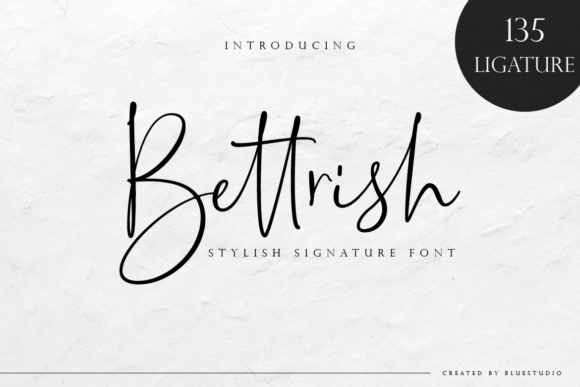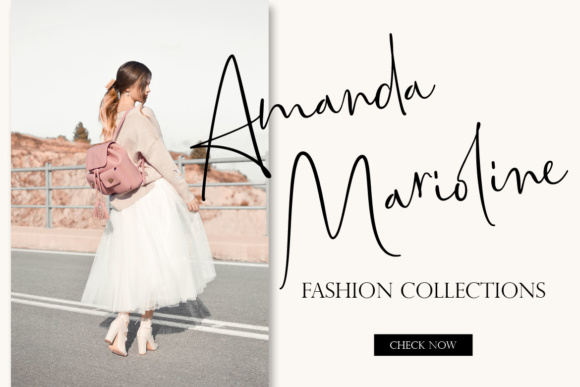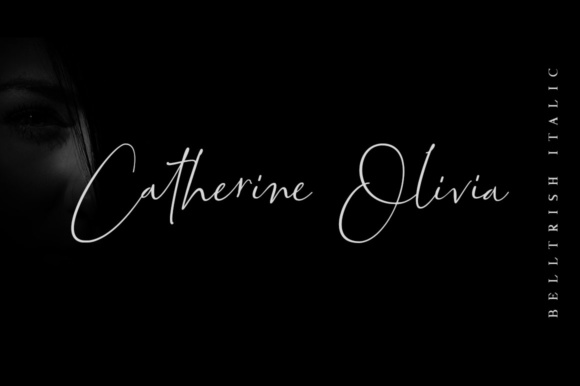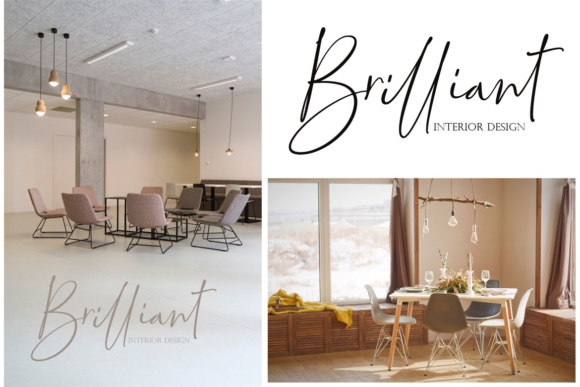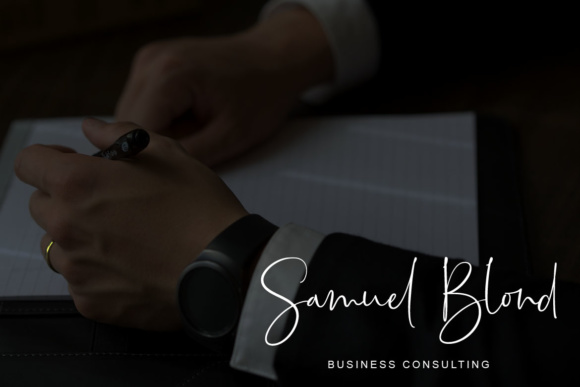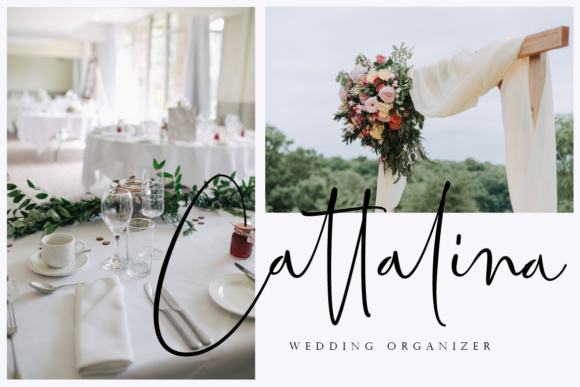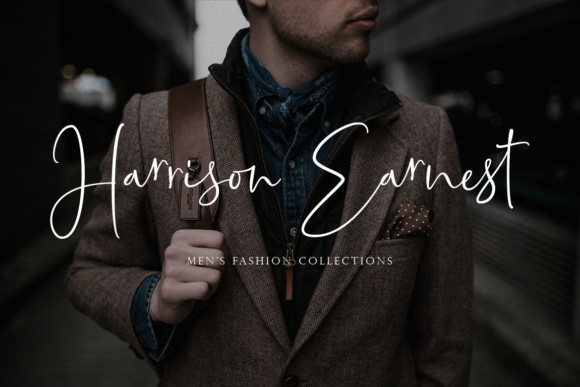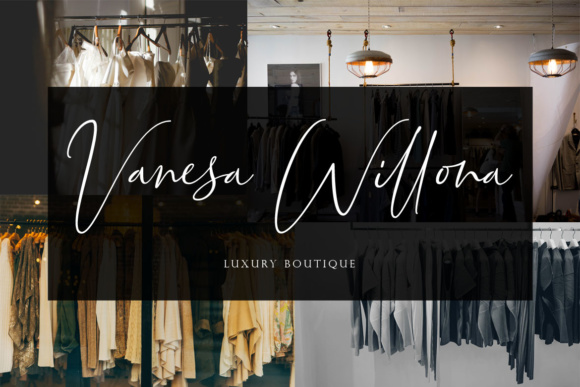
Bettrish Font
About Bettrish Font
The Bettrish is a stylish signature font. It offers a beautiful typographic harmony for a variety of design projects.